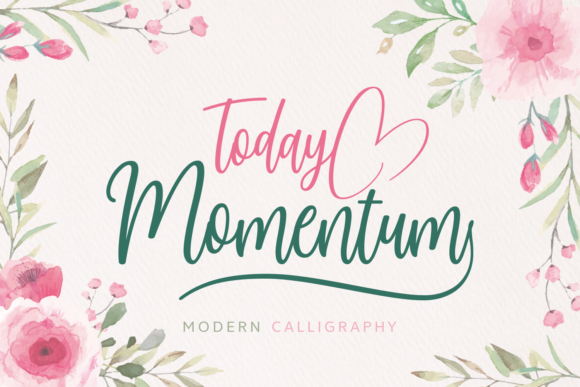
Prepare yourself for a calligraphic journey like no other, as we introduce Today Momentum Font, a script font family that will captivate your imagination and add a touch of elegance to your creative endeavors.
Crafted with meticulous care by Situjuh, Today Momentum embodies the essence of handwritten artistry. Its graceful strokes and charming imperfections impart a timeless appeal, inviting you to express your creativity in a truly personal way.
Whether you're designing heartfelt wedding invitations, creating enchanting social media graphics, or crafting captivating brand logos, Today Momentum is the perfect font to convey a sense of sophistication and authenticity. Its versatility knows no bounds, allowing you to create a myriad of designs that are sure to leave a lasting impression.
Let Today Momentum be your guide as you explore the realm of typography. Its enchanting curves and delicate details will add a touch of magic to your creations, inspiring you to push the boundaries of your imagination.
With Today Momentum at your fingertips, the possibilities are endless. Uncork your creativity and embark on a journey where your designs will blossom into masterpieces. Seize the opportunity to make a statement that resonates with your audience, leaving them spellbound by the allure of beautifully crafted typography.